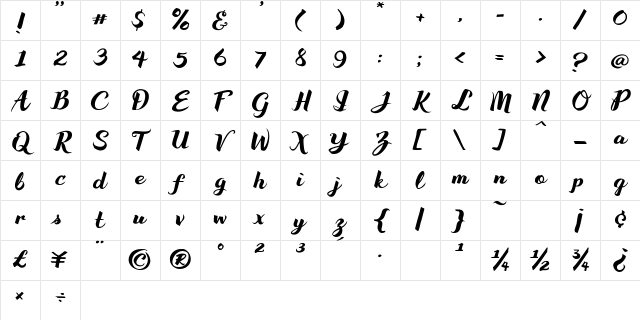
Wake Up Bro Regular
Foundry: Violet Chapin
Designer: V Chapin
Design Context for Wake Up Bro
Wake Up Bro is a composed and adaptable typeface that performs quietly and consistently across a wide range of design contexts.